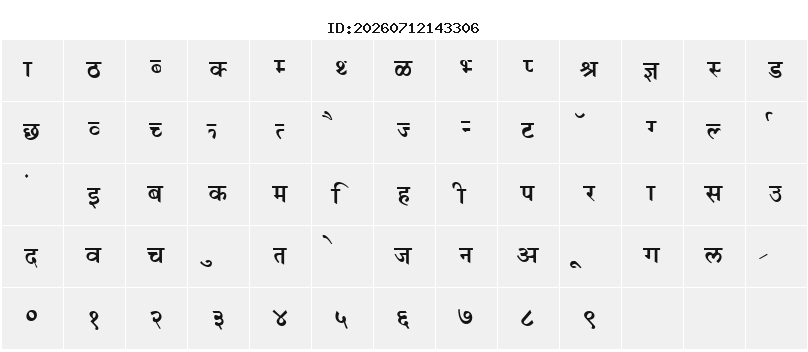
RaviVarma Preview
About RaviVarma.ttf
RaviVarma.ttf is a modern, elegant sans-serif font designed for ultimate readability and visual harmony. Perfect for branding, headlines, web design, and print materials.